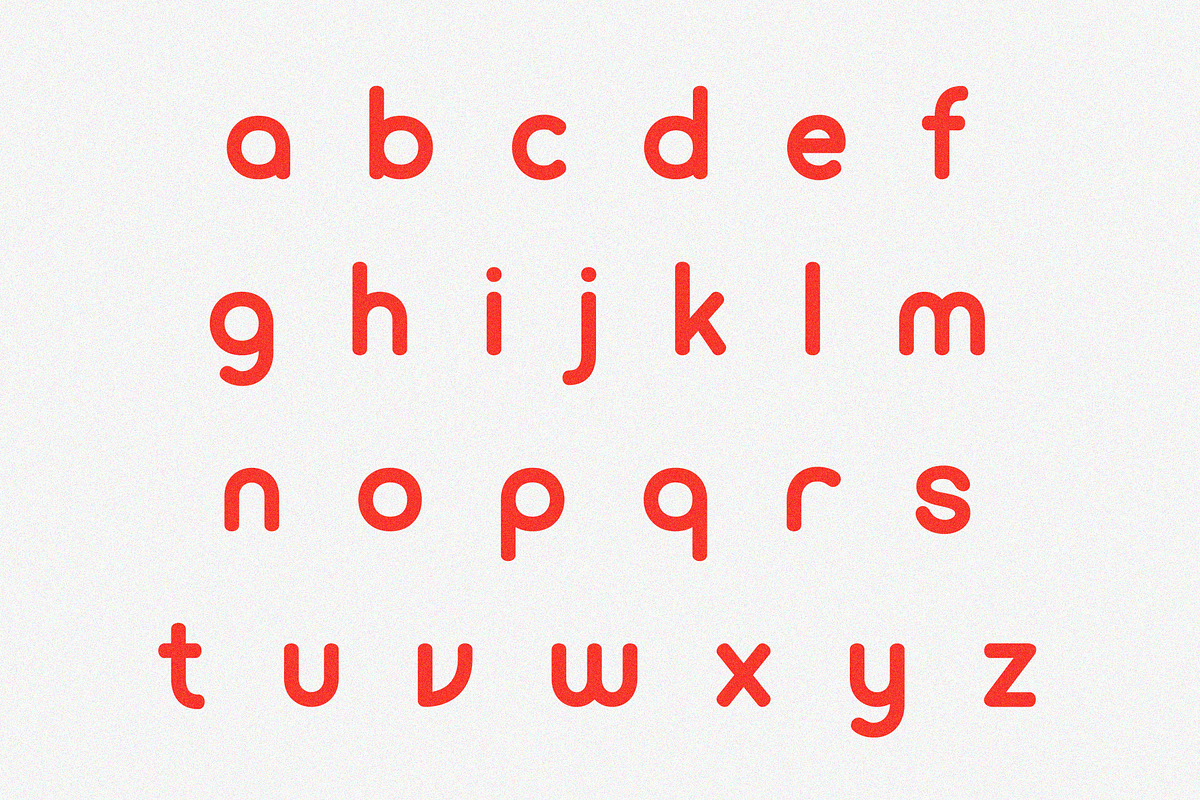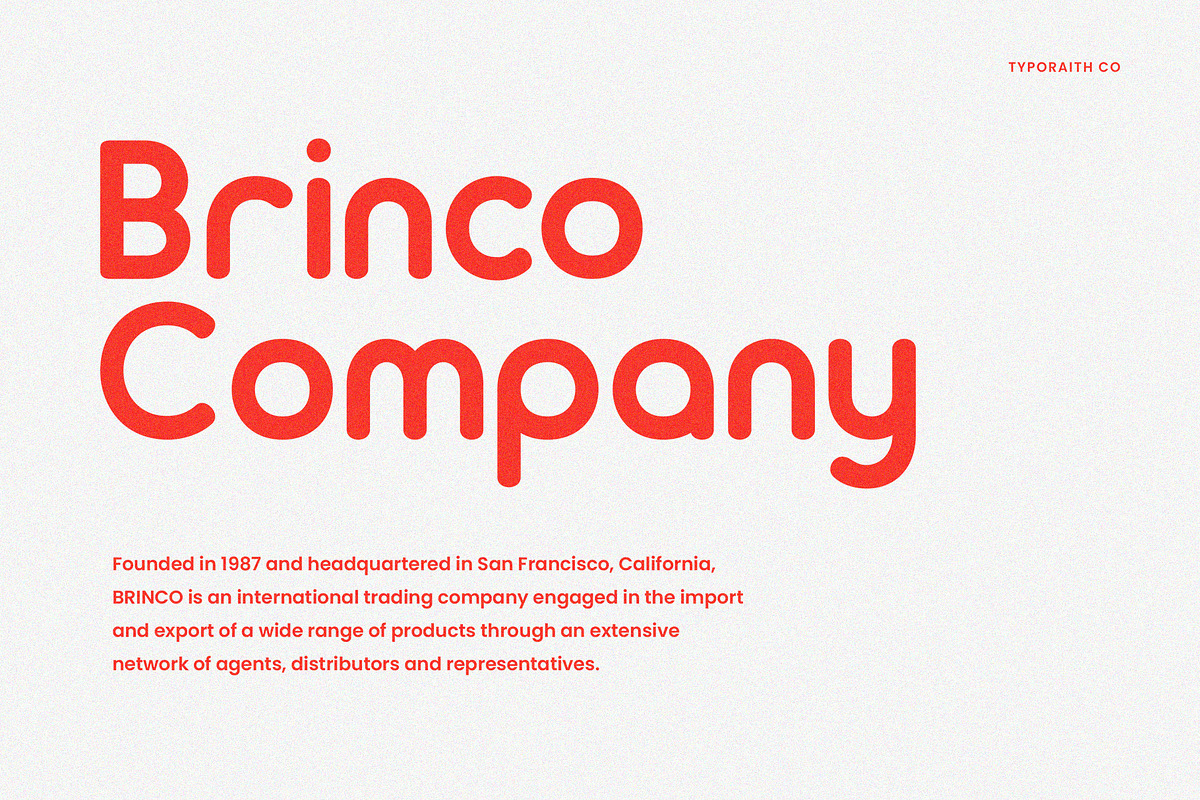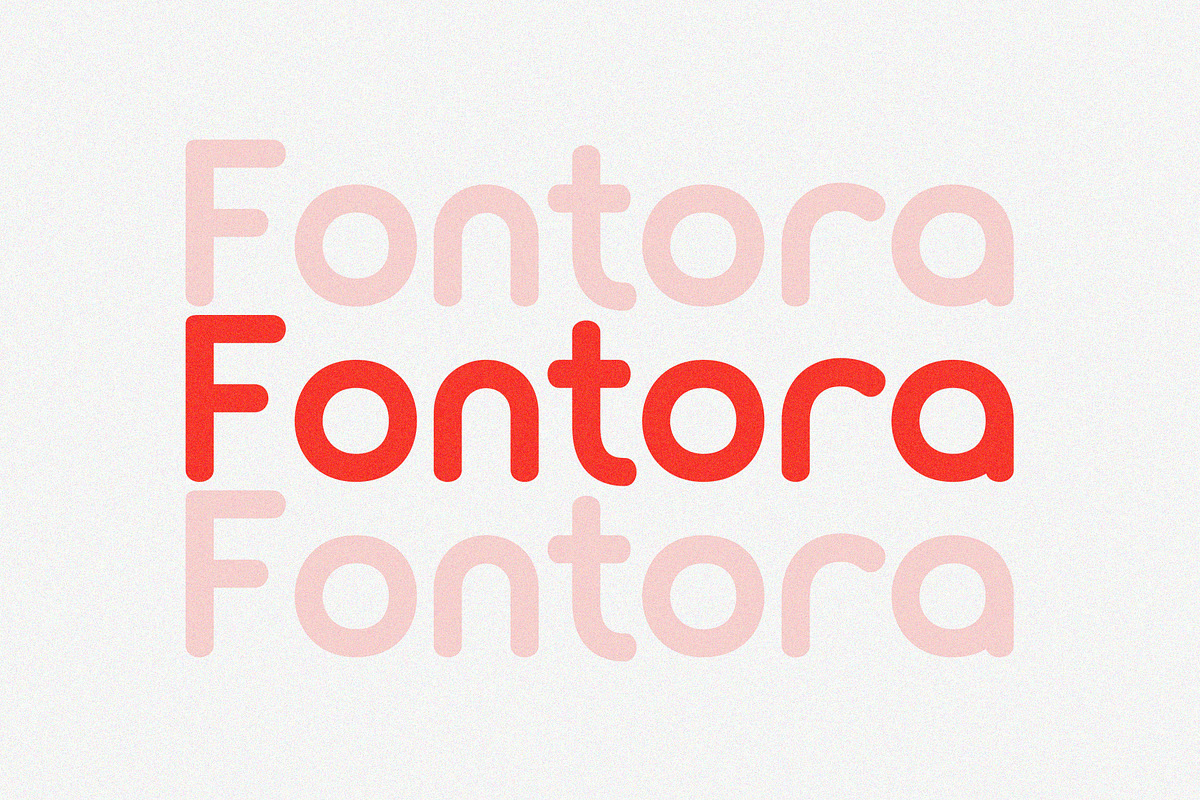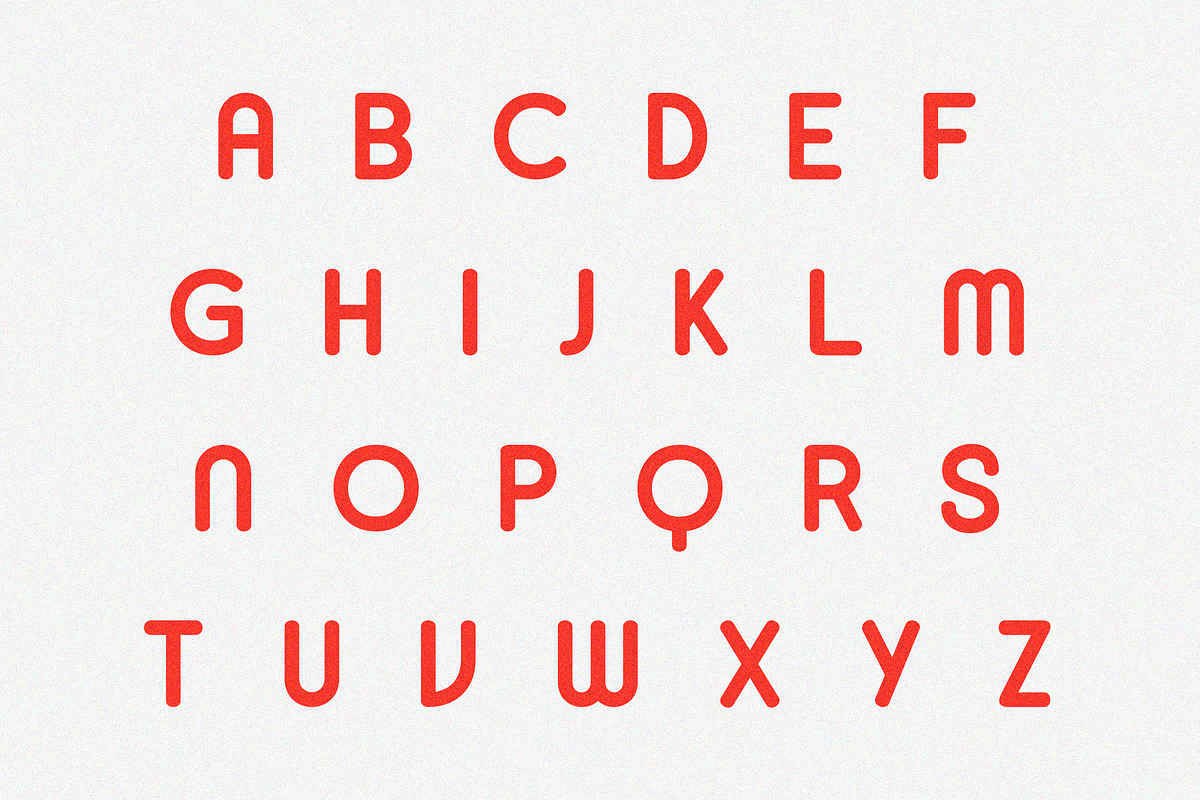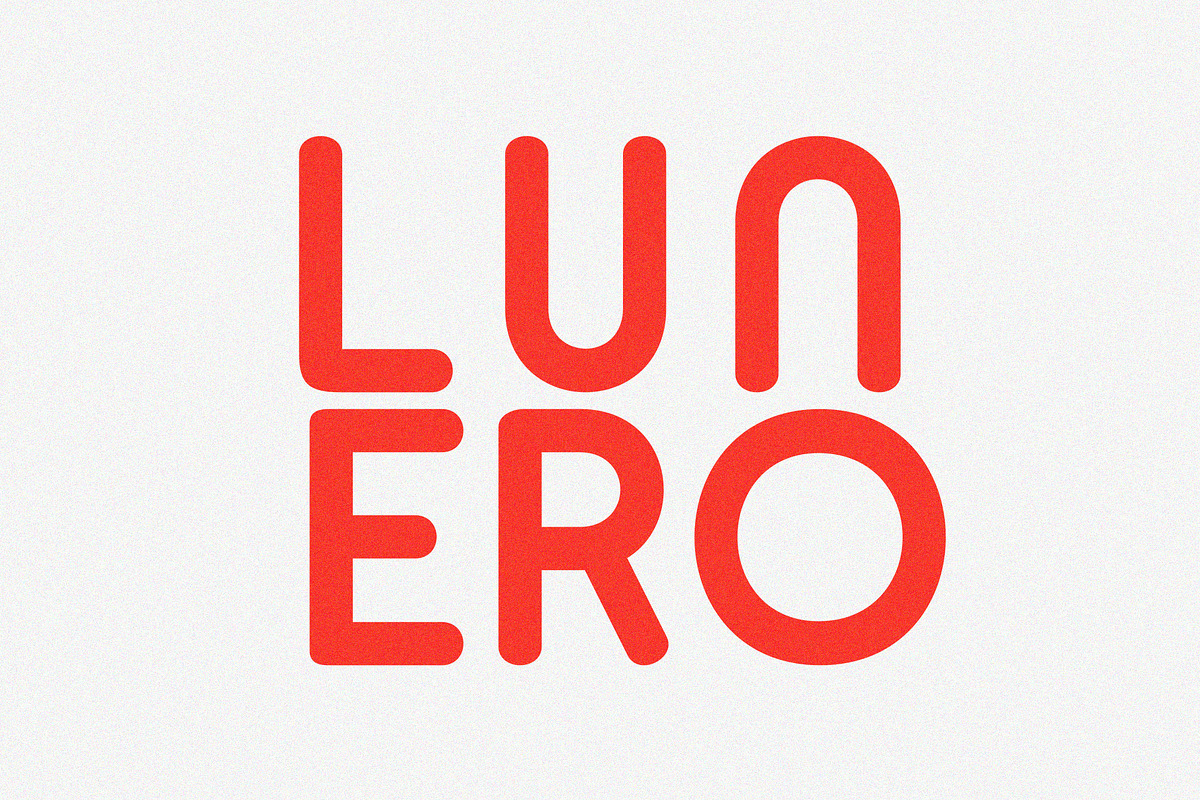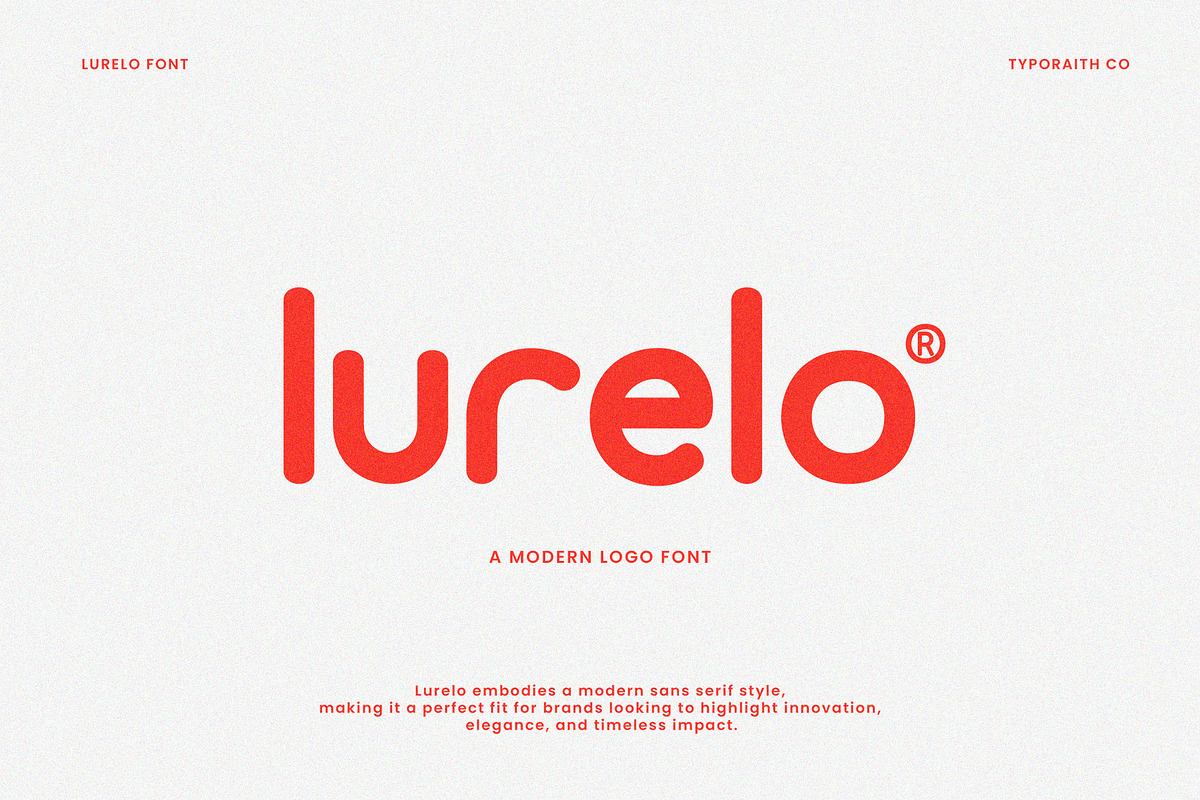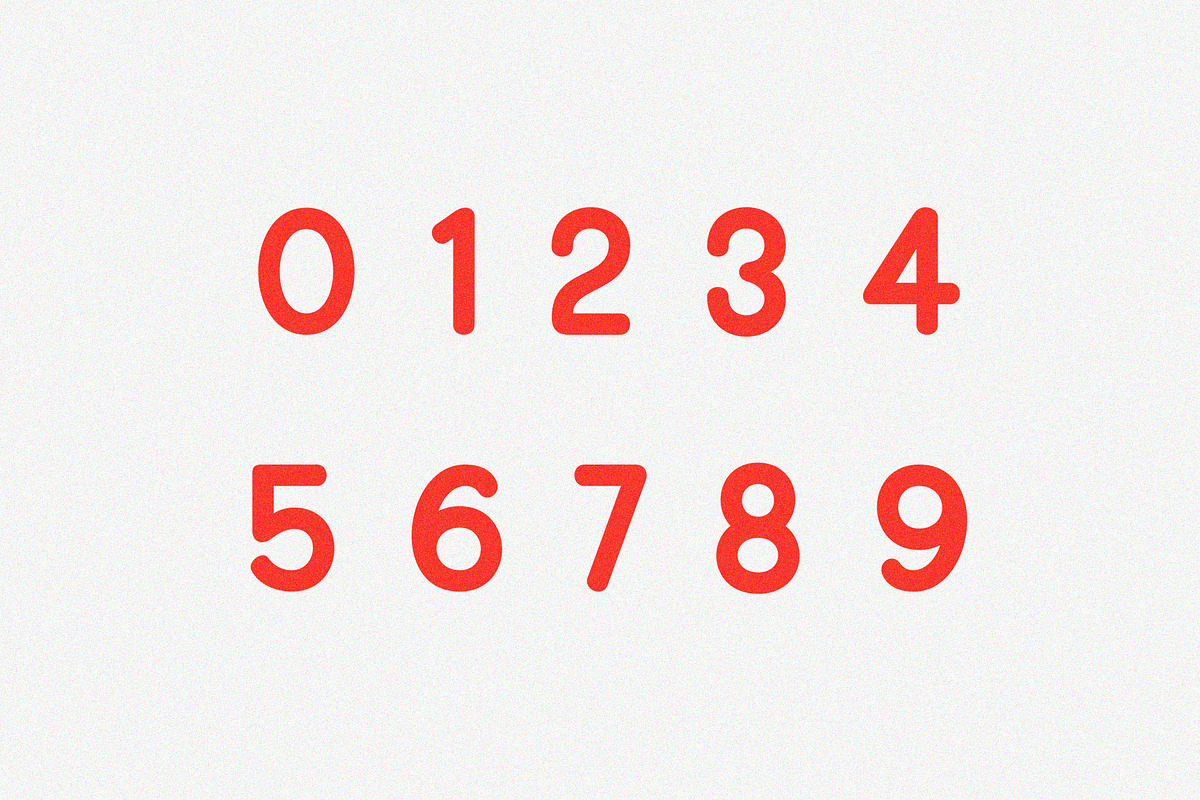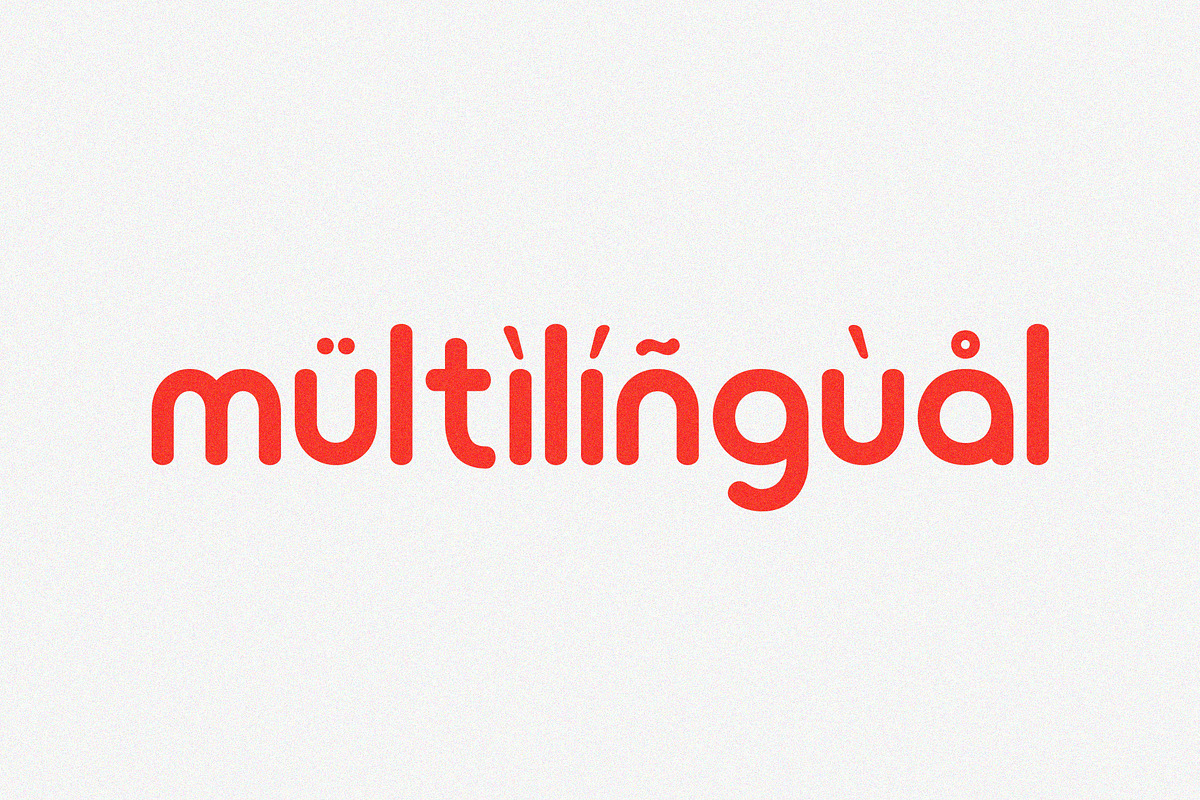
Lurelo | A Modern Logo Font
Lurelo is a bold and modern display font designed for standout branding and clean logo designs. With sharp edges, smooth curves, and a strong minimalist feel, Lurelo brings a confident and stylish look to any project. Perfect for logos, headlines, posters, and visual identities that need a modern edge.
All caps, numbers & basic punctuation
Clean, versatile, and easy to use
Give your designs a bold, professional look with Lurelo – the perfect font for modern brands.